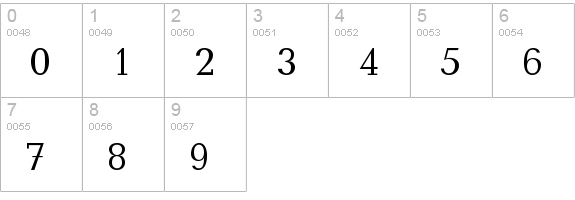
PM Baltica Cyrillic Font Details
PM Baltica Cyrillic is a stunning and elegant font that embodies the beauty and complexity of Cyrillic script. Its intricate design features stylish letterforms that exude a sense of sophistication and charm. Whether used for titles, headings, or body text, PM Baltica Cyrillic adds a touch of class to any project. What makes PM Baltica Cyrillic even more appealing is that it is completely free to download. You can easily access this exquisite font at FontsMarket.com, where you can enhance your designs without any cost. Don't miss out on the opportunity to elevate your creative work with the timeless beauty of PM Baltica Cyrillic.